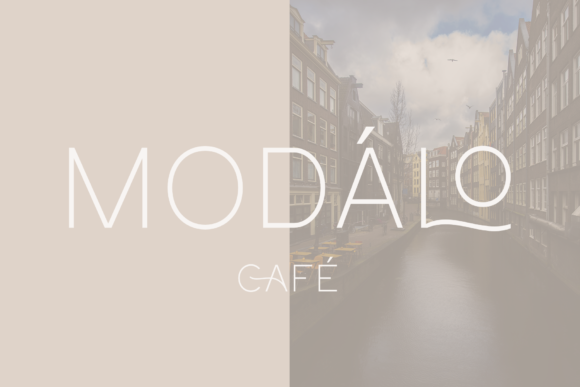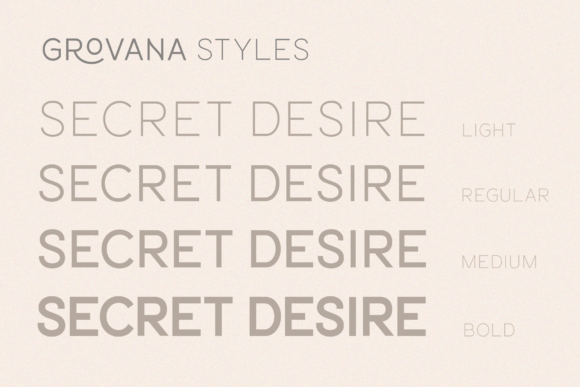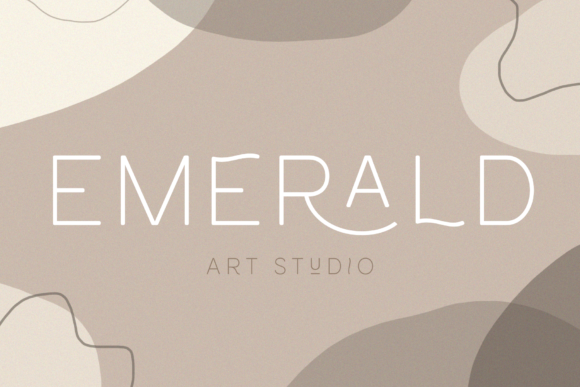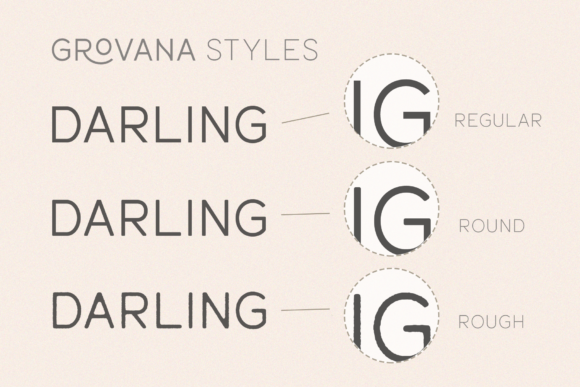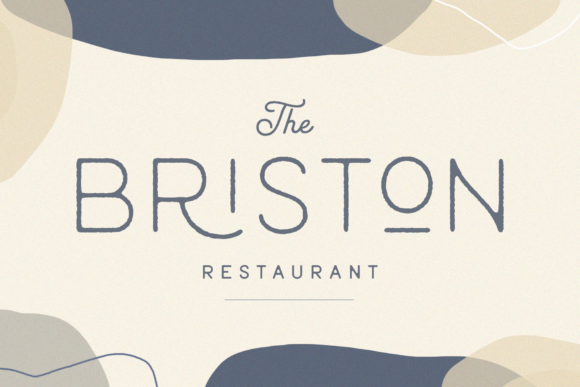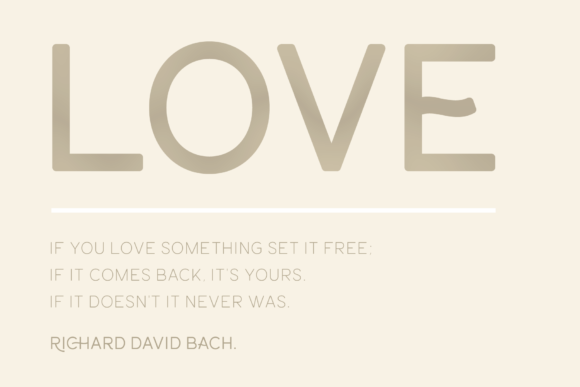
Introduction to Grovana Font
Have you ever stared at a blank canvas, struggling to find the perfect font to bring your creative project to life? I know I have! The blank page can be intimidating, but what if I told you that the perfect font is just a click away? Introducing the Grovana Font, a stunning sans serif font that will add a charming touch to any design.
As a designer, you’re always on the lookout for high-quality design resources that will elevate your work. The Grovana Font is a valuable addition to your toolkit, offering a clean and modern aesthetic that’s perfect for a wide range of creative projects. Plus, with a transparent background, you can easily layer your design elements without any distractions.
Key Features of Grovana Font
- High-quality design resource suitable for various creative projects, including digital art and graphic design.
- Features a unique, modern aesthetic with a transparent background, allowing for seamless integration into various design elements.
- Designed to be highly versatile, making it suitable for use in a wide range of applications, from logos and branding to digital art and print materials.
- Includes a comprehensive character set, including uppercase and lowercase letters, numbers, and special characters, making it a complete design resource.
Honest Review: Grovana Font
I recently stumbled upon the Grovana Font, a free download that caught my attention with its unique and elegant design. As a designer, I appreciate high-quality design resources that can elevate my creative project to the next level. The Grovana Font delivers on this promise.
What works well: ✨ The font’s transparent background allows for seamless integration with any design element, giving me the flexibility to create visually appealing compositions. The font’s clean and modern aesthetic is perfect for a wide range of creative projects, from branding to editorial content. The Grovana Font also supports multiple languages, making it a versatile addition to my design toolkit.
However, I did encounter some limitations: ⚠️ While the font is free to download, it’s not compatible with all software applications. Additionally, the font’s character set is not as extensive as some other popular fonts on the market.
Overall, I’m impressed with the Grovana Font’s unique design and flexibility. While it may have some limitations, it’s a great addition to any designer’s toolkit. If you’re looking for a high-quality, free font to elevate your creative project, I’d definitely recommend giving the Grovana Font a try.
- Unique and elegant design
- Clean and modern aesthetic
- Supports multiple languages
Grovana Font
Tips for Getting the Most Out of the Grovana Font
Use the Grovana Font with a transparent background to create a modern and sleek design. Experiment with different font sizes and colors to add visual interest to your project. You can also use the Grovana Font in combination with other design elements, such as images and shapes, to create a unique and eye-catching design.
The Grovana Font is a versatile design resource that can be used for a variety of creative projects, including social media graphics, business cards, brochures, and presentations. It’s a great choice for designers who want a high-quality font that’s easy to use and customize.